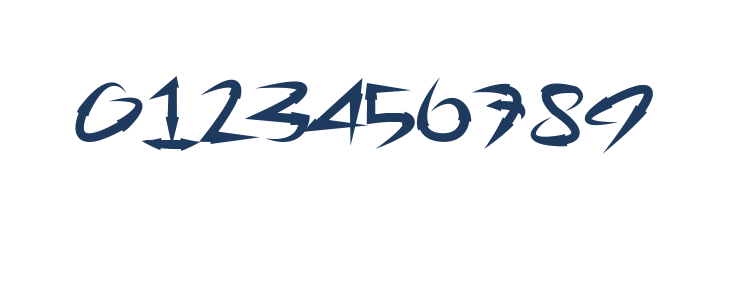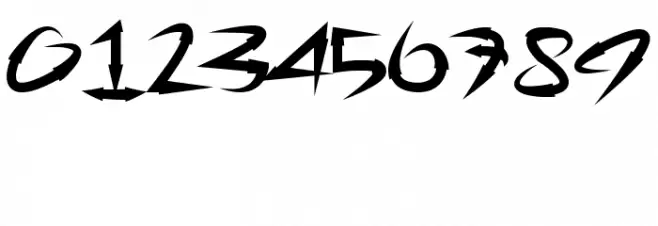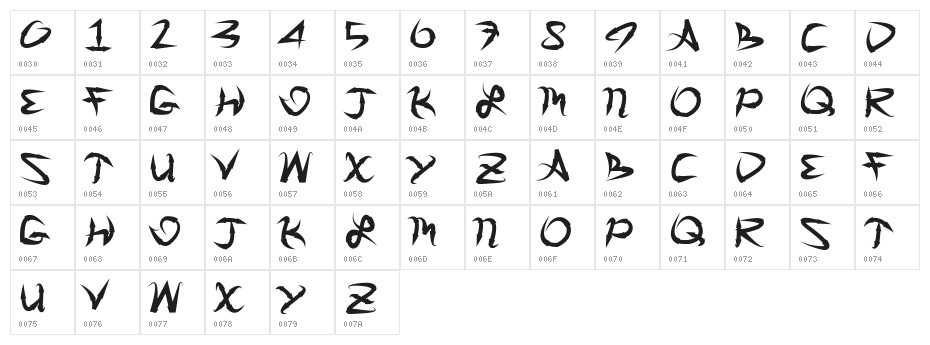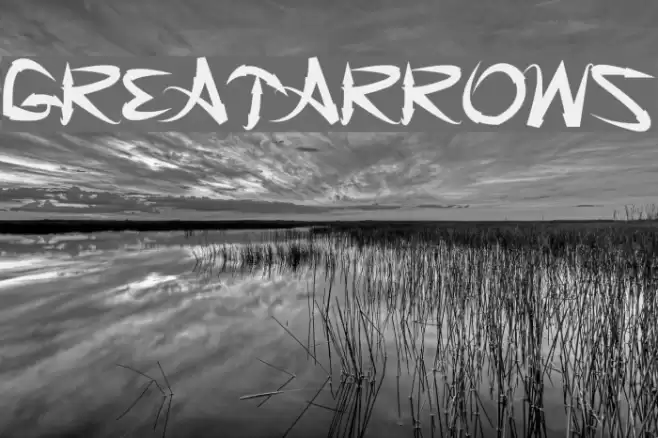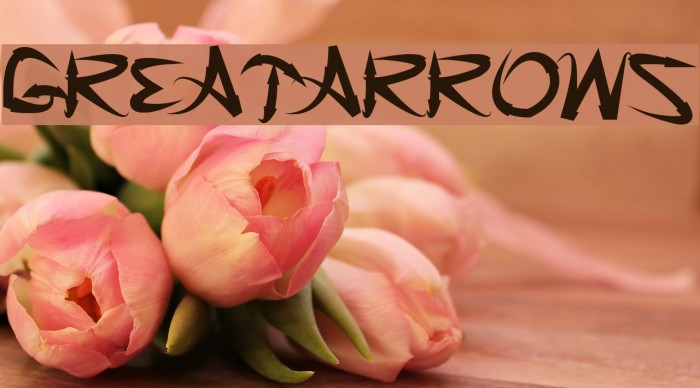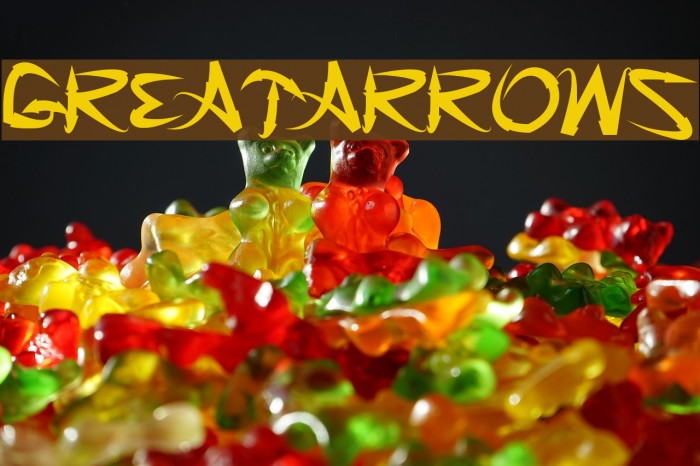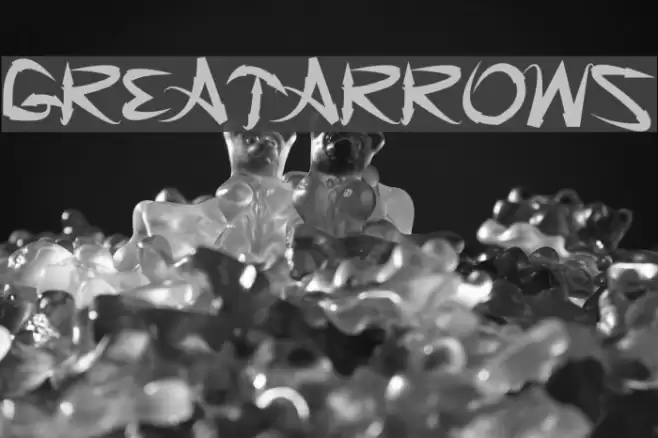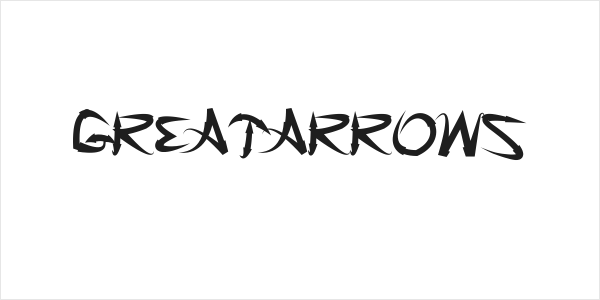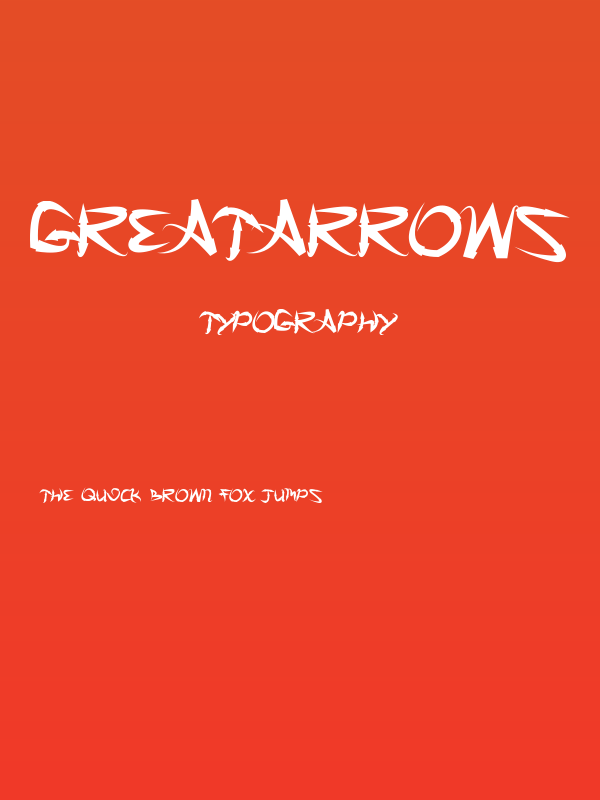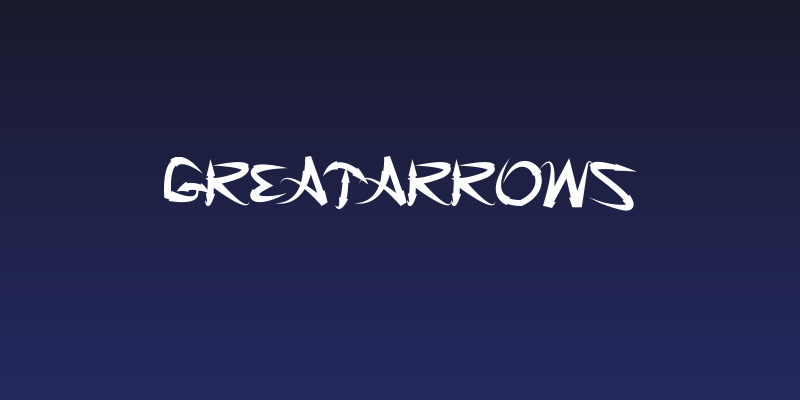
GreatArrows Font
GreatArrows Description
This font features a bold and dynamic design with sharp, angular strokes that give it a fierce and energetic appearance. The characters are crafted with a sense of movement, resembling arrows or blades, which adds a unique and aggressive flair. The uppercase and lowercase letters maintain a consistent style, with exaggerated curves and pointed ends. The numbers follow the same aesthetic, ensuring a cohesive look across all characters. This font is ideal for projects that require a strong, impactful presence.
| Proposed Projects | Ideal for sports branding, action movie posters, video game titles, and edgy graphic designs. |